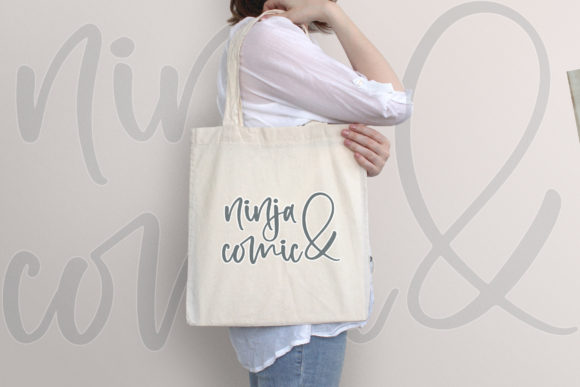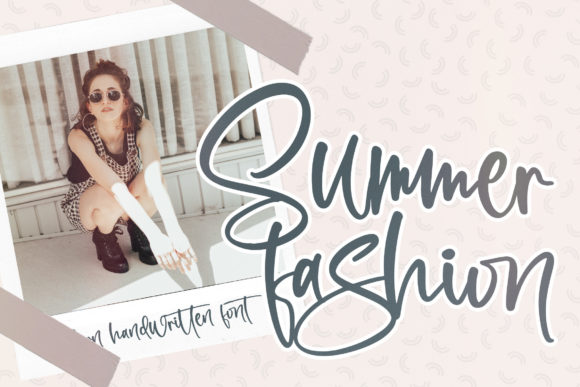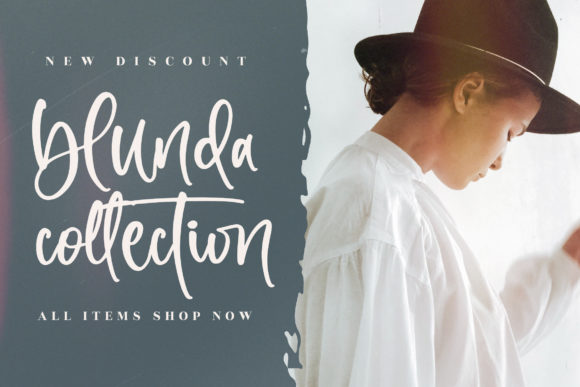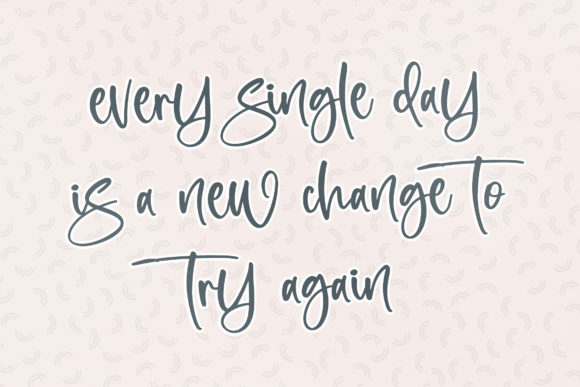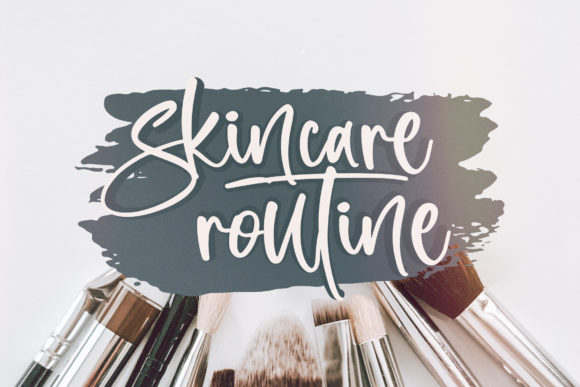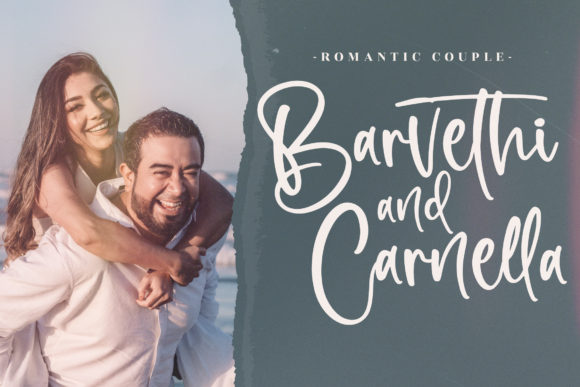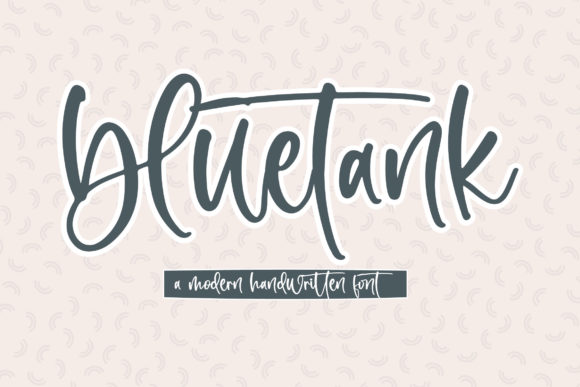
The Bluetank Font: A Playful Script to Elevate Your Designs
Have you ever been working on a design project, and suddenly, it feels like something’s missing? You’re not quite sure what it is, but you know it’s not quite right. I recall a project where I was struggling to find the perfect font to match my client’s brand personality. That’s when I stumbled upon the Bluetank font, and it completely transformed my design!
An Honest Review of Bluetank Font
What I Love About Bluetank ✨
- ✅ Charming, playful characters that seem to dance along the baseline
- ✅ PUA encoded for easy access to all glyphs and swashes
- ✅ Perfect for creative projects that need a touch of whimsy and personality
- ⚠️ Some users might find the font a bit too playful for formal projects
- ⚠️ Limited use of uppercase letters, which might not be ideal for all designs
The Story Behind Bluetank Font
Bluetank was designed with the intention of creating a playful, yet elegant script font. The designer aimed to craft a font that would add a touch of whimsy to any design project, while still maintaining a level of sophistication. Although the designer’s background is shrouded in mystery, their passion for typography and creative expression is evident in the font’s charming characters.
Q: What is PUA encoding, and how does it benefit Bluetank font?
PUA (Private Use Area) encoding allows font designers to include additional glyphs and characters that aren’t part of the standard Unicode range. In the case of Bluetank, PUA encoding enables easy access to swashes, glyphs, and other special characters, making it a more versatile font.
Q: Is Bluetank font suitable for body text or long-form content?
Bluetank font is primarily designed for display purposes, such as headings, titles, or short paragraphs. While it’s possible to use it for body text, its playful nature might make it less suitable for long-form content. Consider using a more readable font for extended text.